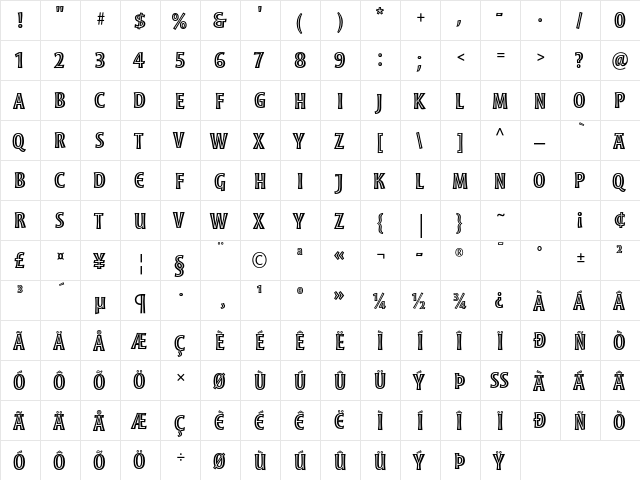
Moonglow Semibold Condensed
| Designer | Michael Harvey |
Design Context for Moonglow Typeface
Moonglow is a composed and adaptable typeface that performs quietly and consistently across a wide range of design contexts. Its bold stroke weight gives it real presence on the page. Its narrow stance lets it pack a punch even in space-constrained designs.